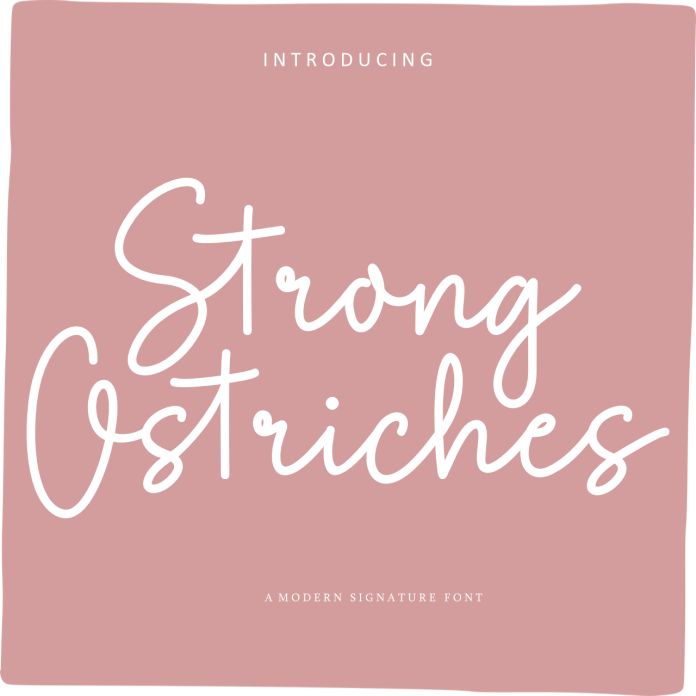
Strong Ostriches is a new modern script font with a signature style baseline. it looks lovely on wedding invitations, thank you cards, quotes, greeting cards, logos, business cards and more.